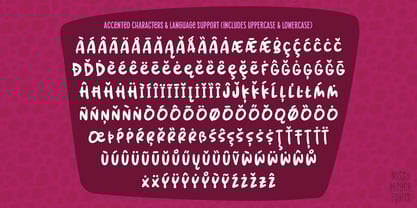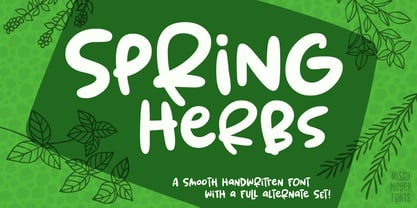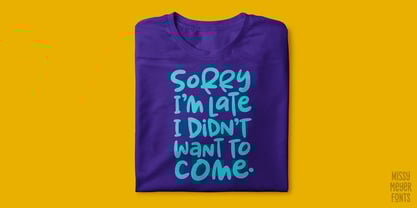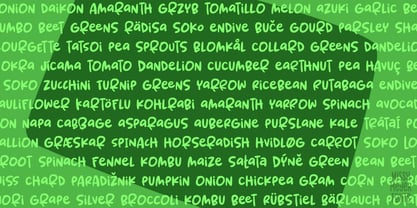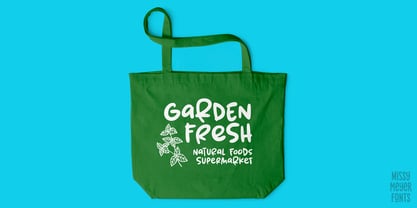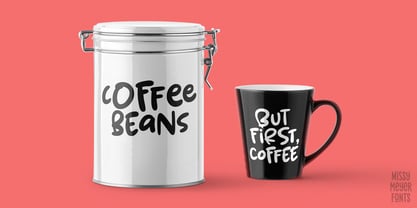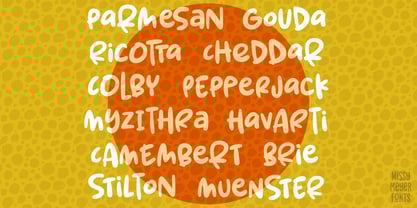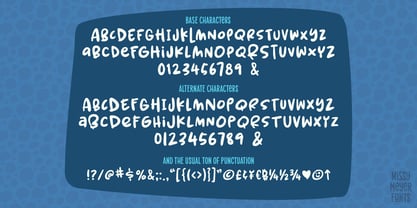
Spring Herbs
by Missy Meyer
The Spring Herbs Font Family was designed by Missy Meyer and published by Missy Meyer. Spring Herbs contains 1 styles. More about this family
It's blobby, bouncy, and super whimsical. It's my Spring Herbs font!
I had a ton of fun with this font. With varying stroke weights, heights, and sizes, plus FOUR options for every letter, you can create a fun design with hand-lettered flair!
Spring Herbs contains over 600 total glyphs, including more than 300 extended Latin characters for language support, over 30 multi-letter ligatures, and alternates for A-Z, a-z, and 0-9! It's extensively cleaned to be smooth and sharp for both cutting and printing.